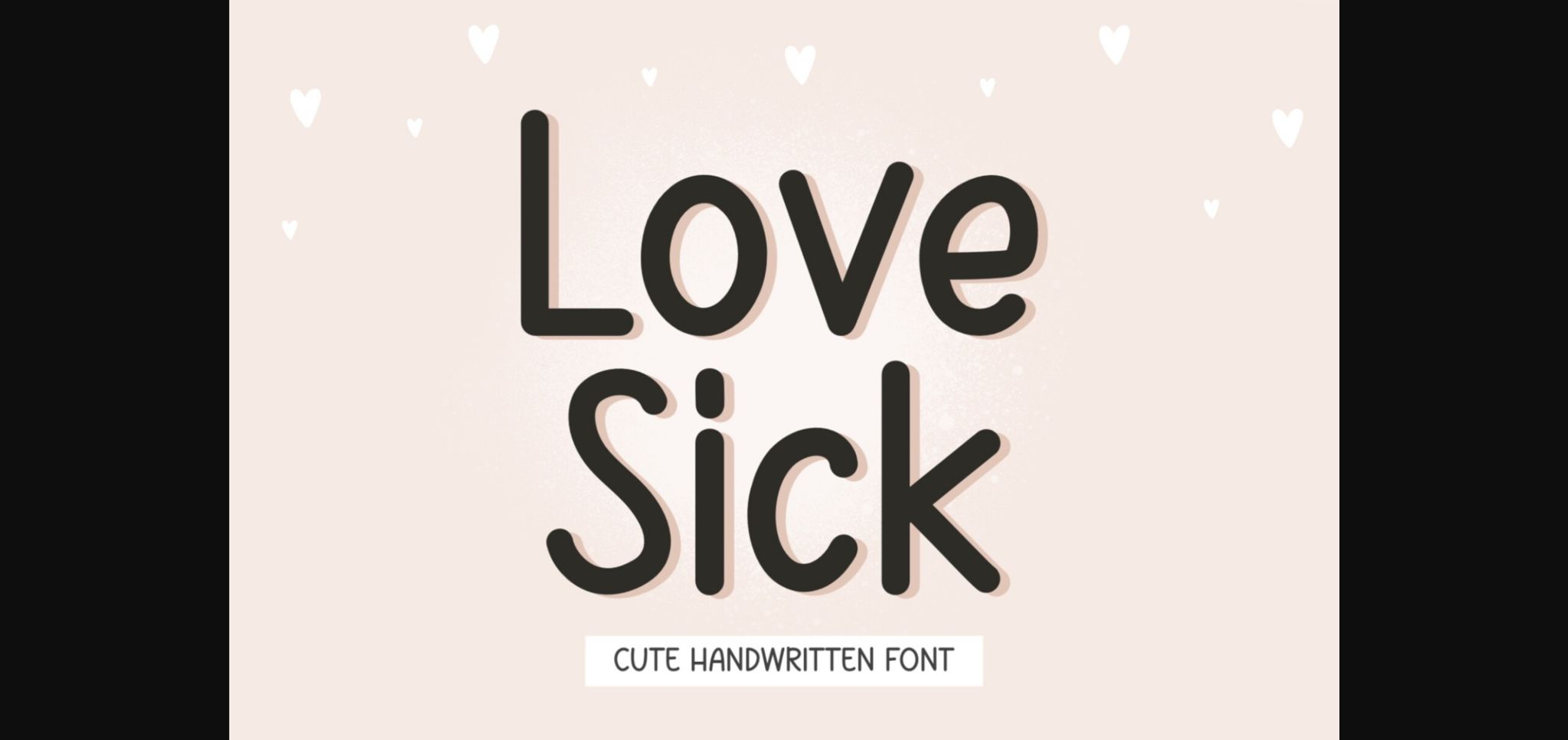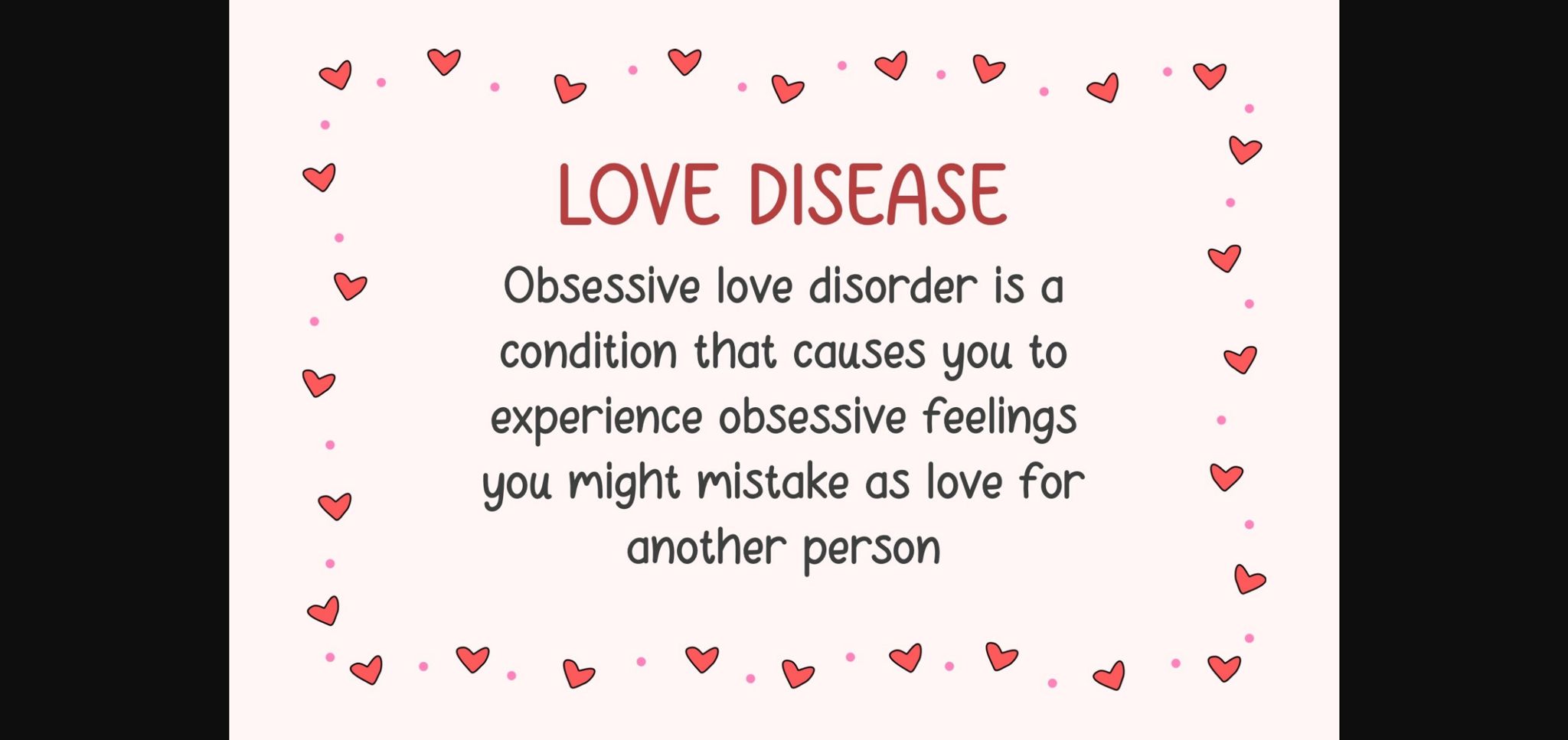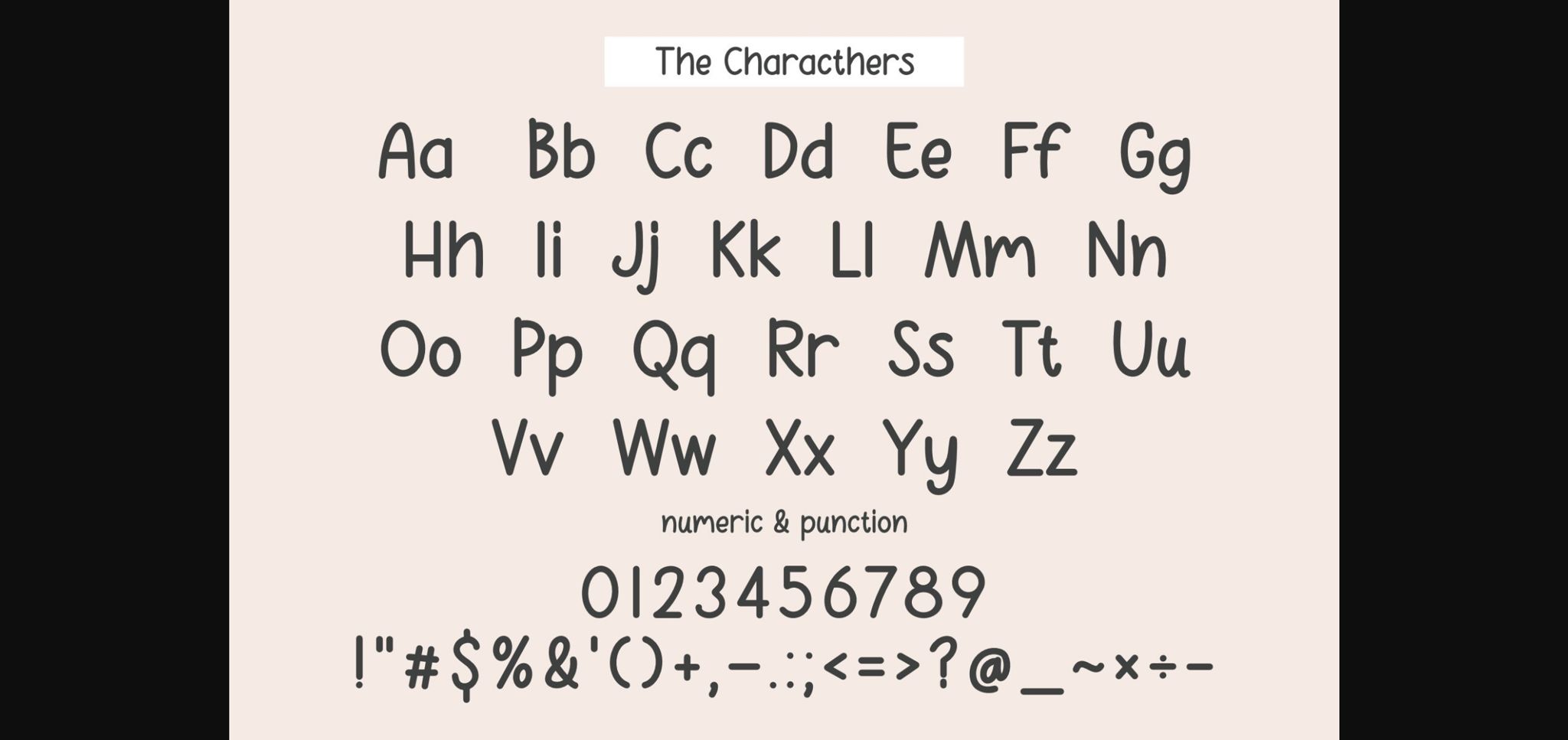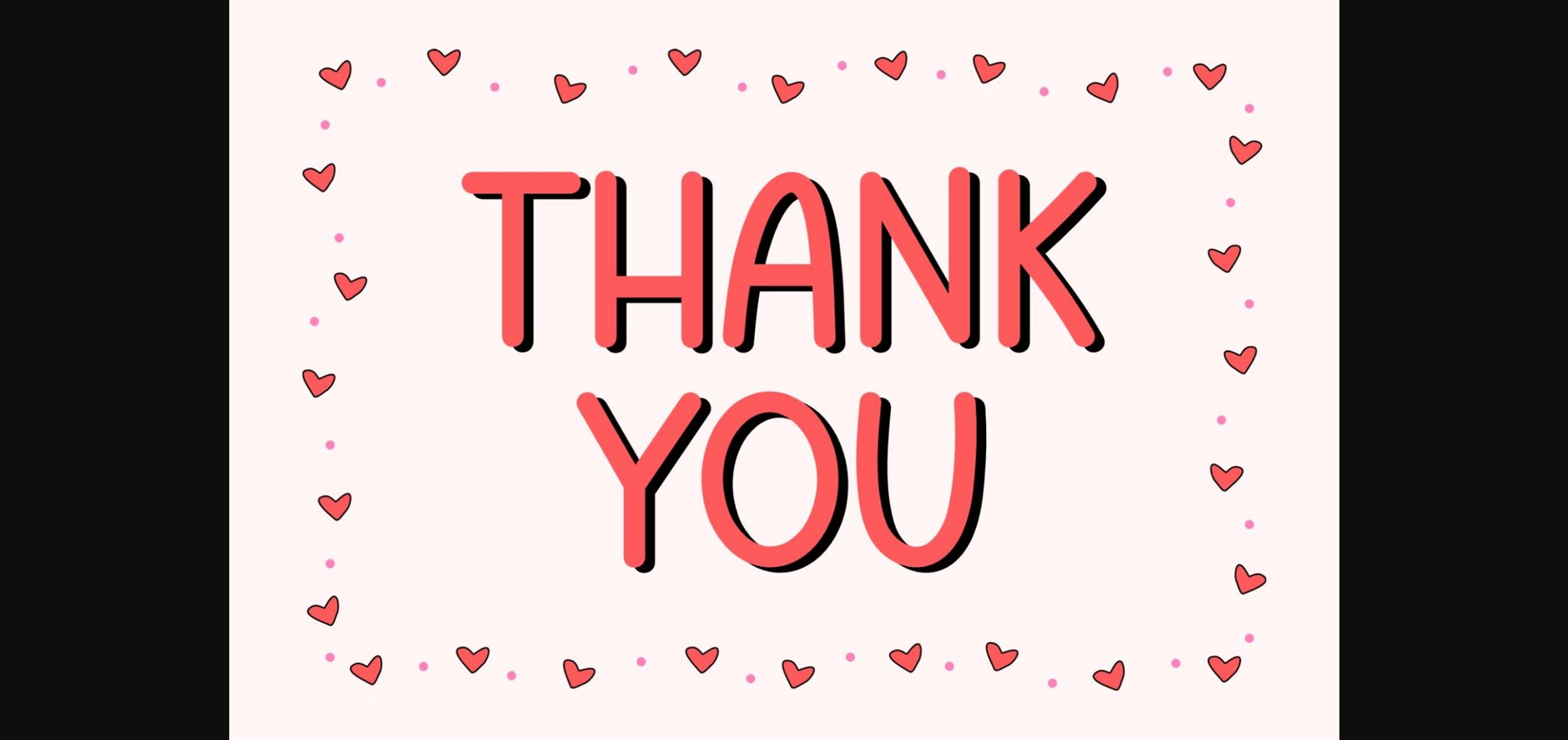
Lovesick Font
About Lovesick Font
Indulge in the art of love with Lovesick font, a mesmerizing symphony of handwritten elegance. Let every word resonate with the tender vibes of romance, encapsulated in the sleek curves and modern allure of this typeface. Elevate your expressions and bring your messages to life with the timeless charm of Lovesick font – where passion finds its perfect font.